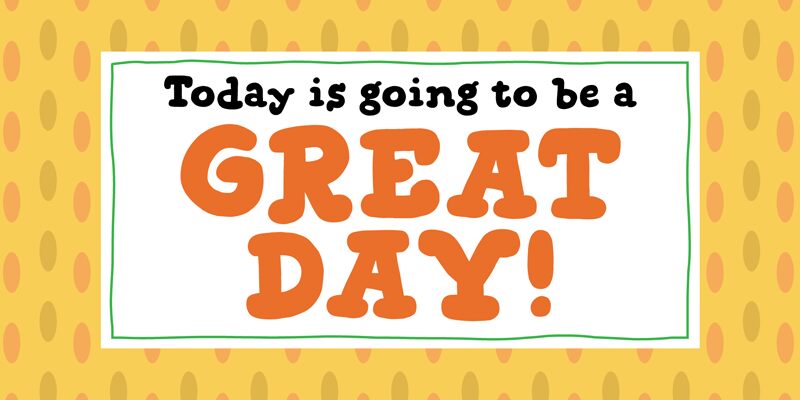
Snuggle Punk DEMO
Snuggle Punk font is a bold and vibrant display typeface designed by Pizzadude. This cartoonish font makes quite the eye-catching, unique and engaging statement in your designs and is perfect for creating attention-grabbing headlines, posters, or any other work. The design of the typeface is inspired by retro cartoons and presents familiar shapes with a little twist giving it that important playful look often needed in modern design.It offers an informal yet powerful style which works well both on screen and printed materials, while also offering enough versatility to be used across many different kinds of projects.
The applications for this display typeface are near-endless; it’s perfect for cartoons (of course!), comics books or annuals aimed at children among other things! It can equally be applied to advertising posters & flyers related products targeting specific audiences through its incredible sense of fun – not forgetting websites too where curiosity could help increase traffic numbers due mostly because they’ll want know what happens next after their initial encounter with such stunning visuals!